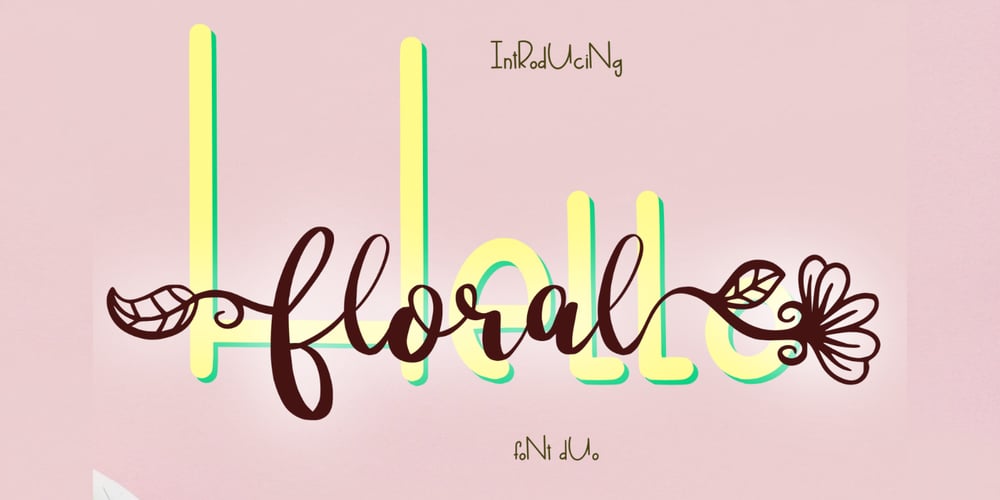
Hello floral Font Family was designed by Monotype Design Studio and published by Cocodesign. Hello floral contains 1 styles and family package options. Hello floral is a modern handdwriting design, including Regular. This font is casual and beautiful with swash. Can be used for various purposes. such as logos, product packaging, wedding invitations, branding, headlines, signage, labels, signatures, book covers, posters, quotes, and more.Hello floral includes a change in the OpenType language style, binding and international support for most Western languages. To activate the OpenType Stylistic alternative, you need a program that supports OpenType features such as Adobe Illustrator CS, Adobe Indesign & CorelDraw X6-X7, Microsoft Word 2010 or newer versions. How to access all alternative characters using Adobe Illustrator:Hello floral is coded with PUA Unicode, which allows full access to all additional characters without having to design special software. Mac users can use the Font Book, and Windows users can use Character Map to view and copy one of the additional characters to insert into your favorite text editor / application.